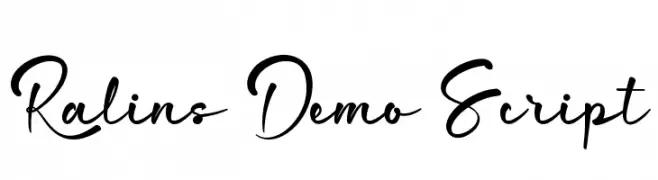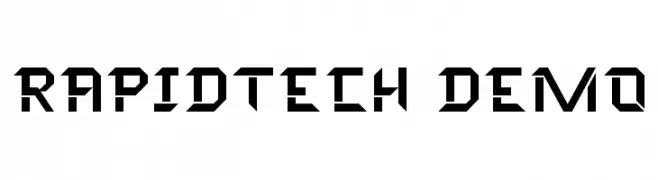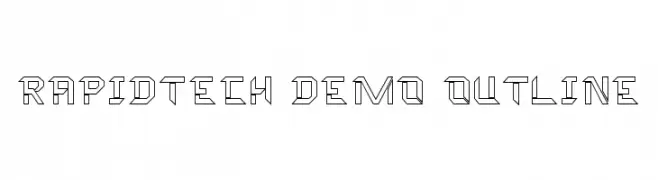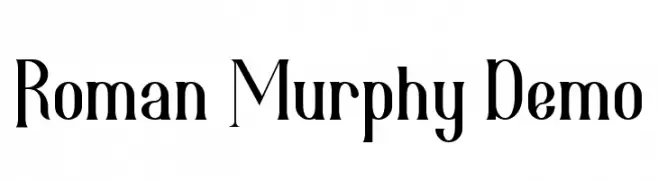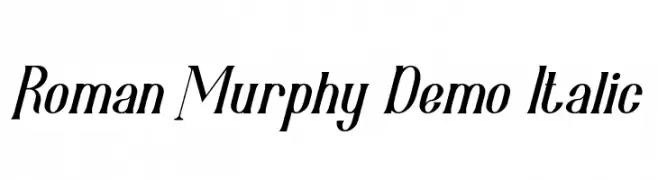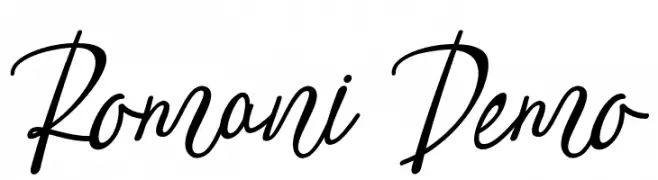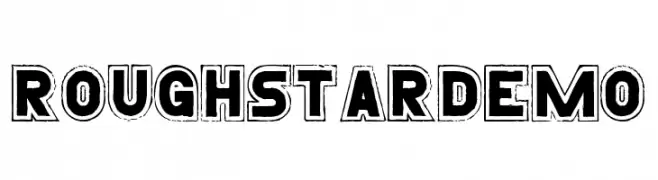
A flowing, elegant script font with a modern calligraphic style.
A bold, geometric font with a futuristic and technological aesthetic.
A futuristic, angular font with a dynamic slant, ideal for tech and modern designs.
A geometric, futuristic outline font with angular lines and sharp edges.
A bold, modern font with high contrast and geometric influences.
A high-contrast, elegant font blending modern and vintage styles with distinctive serifs.
A classic, elegant italic font with smooth curves and refined style.
A fluid and elegant script font with a dynamic, handwritten style.
A bold, distressed font with a vintage, rugged style.
A bold, decorative font with geometric shapes and barbed elements.